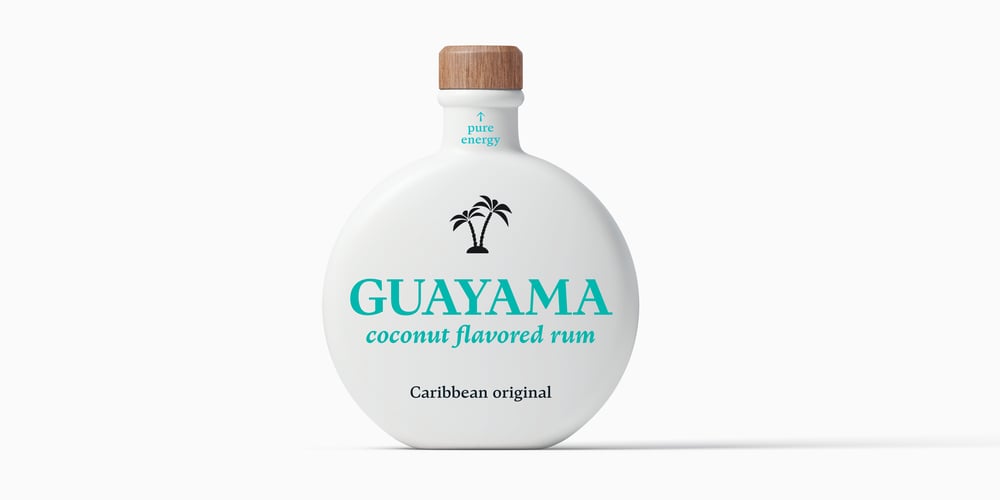
Teramo
Teramo font
Teramo Font Family was designed by Roch Modrzejewski and published by ROHH. Teramo contains 58 styles and family package options. Teramo™ is daring, sharp and dynamic. Its personality is derived from asymmetry and movement. It is a contemporary serif family full of modern design elements playing with proportions of works of XV and XVI century masters such as Francesco Griffo or Claude Garamond. The family features four optical sizes. Display sizes feature extreme stroke contrast and are intended for fashion, lifestyle, cosmetics, magazine, business, hi-tech and advertising use. Text styles are created for all kinds of body copy — long and short paragraphs, books and websites in any modern design context. They are crafted to be elegant and legible, featuring more generous spacing and scrupulous kerning. Display weights are designed as modern, extraordinary variations on didone style. Teramo’s letterforms are merging classical proportions and precise, contemporary details such as asymmetric serifs, sharp edges and unconventional glyph shapes. Another important factor constituating Teramo’s personality is an angled axis, unusual for didone families and giving the typeface much more organic and dynamic feel.Teramo features a lively true italics strongly related to cursive handwriting. The italic styles imply movement, energy and fluency, introducing a new color to paragraph text, as well as being a powerful and interesting standalone display type.The family introduces additional titling letter variations for headlines and display uses, such as sharp and modern lowercase “y” or uppercase alternates for better all caps typography.Teramo consists of 56 fonts in 4 optical sizes – 28 uprights and their corresponding true italics + 2 variable fonts. It has extended language support as well as broad number of OpenType features, such as case sensitive forms, standard and discretionary ligatures, titling alternates, contextual alternates, lining, oldstyle figures, slashed zero, fractions, superscript and subscript, ordinals, currencies and symbols.